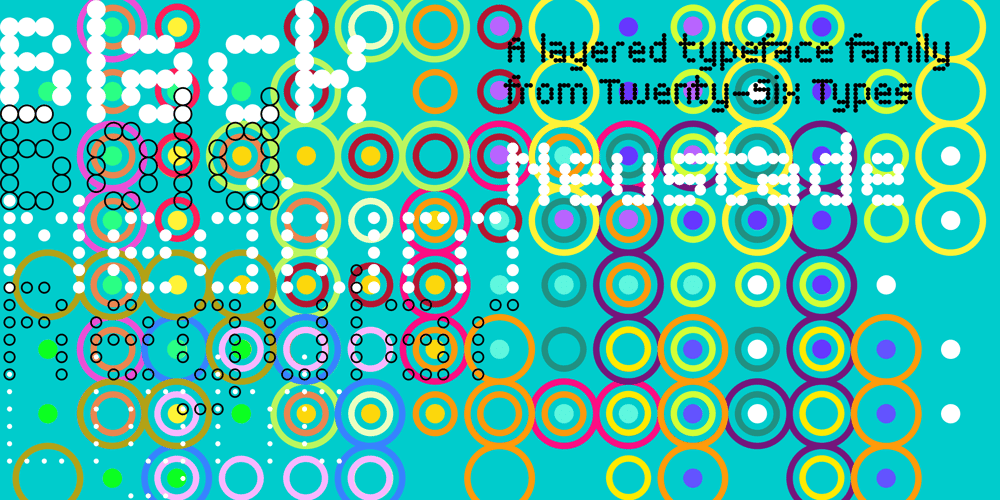
Neustade
Neustade font
Neustade Font Family was designed by Craig Hazan and published by Twenty-Six Types. Neustade contains 5 styles and family package options. Neustade is a layered typeface based on a simple grid, taking inspiration from the work of Wim Crouwel and Foundry Types. I challenged myself to create a typeface where words and letters can appear within or outside of other words and letters with the help of layering. Neustades grid also applies to the spacing and kerning of individual letters or words, ensuring that every layer will line up and allowing different weights to interact with each other. Individually each weight within the Neustade family has been designed with legibility at small sizes in mind, allowing for smooth and uninterrupted reading. Neustade in large sizes feels both modern and retro, especially when mixing weights and colors.